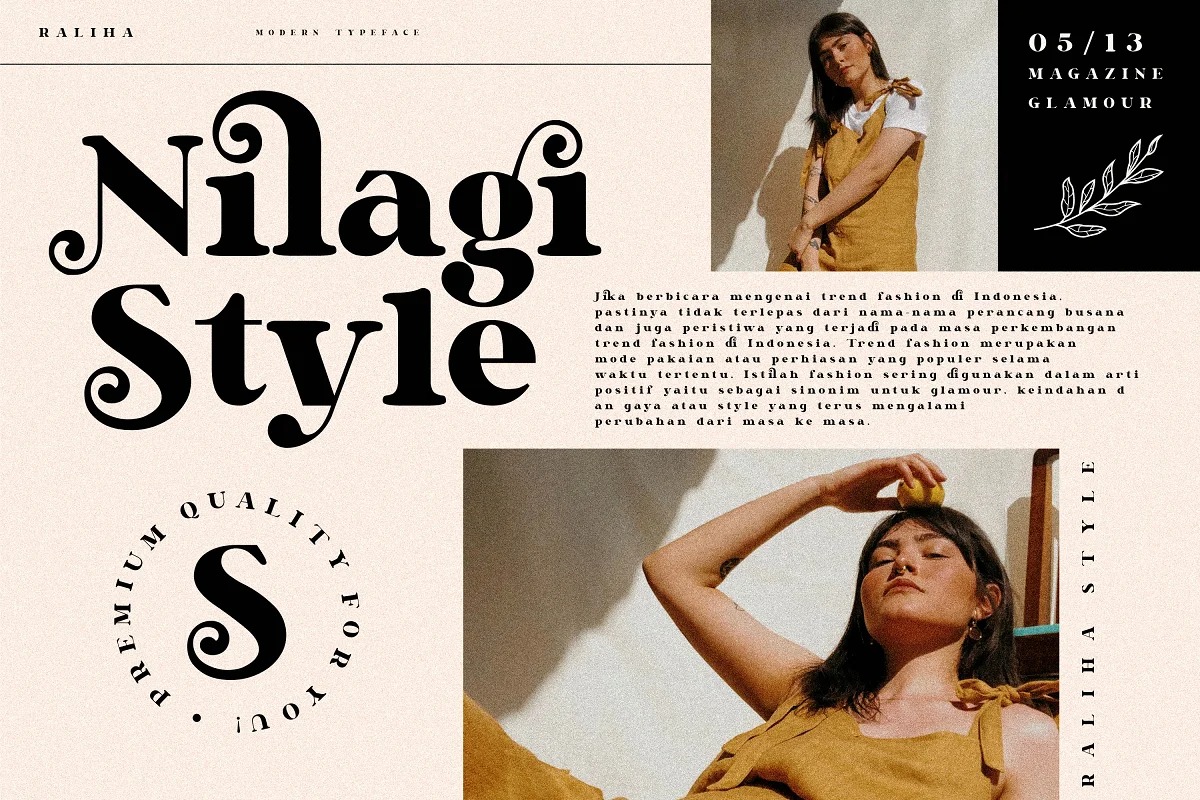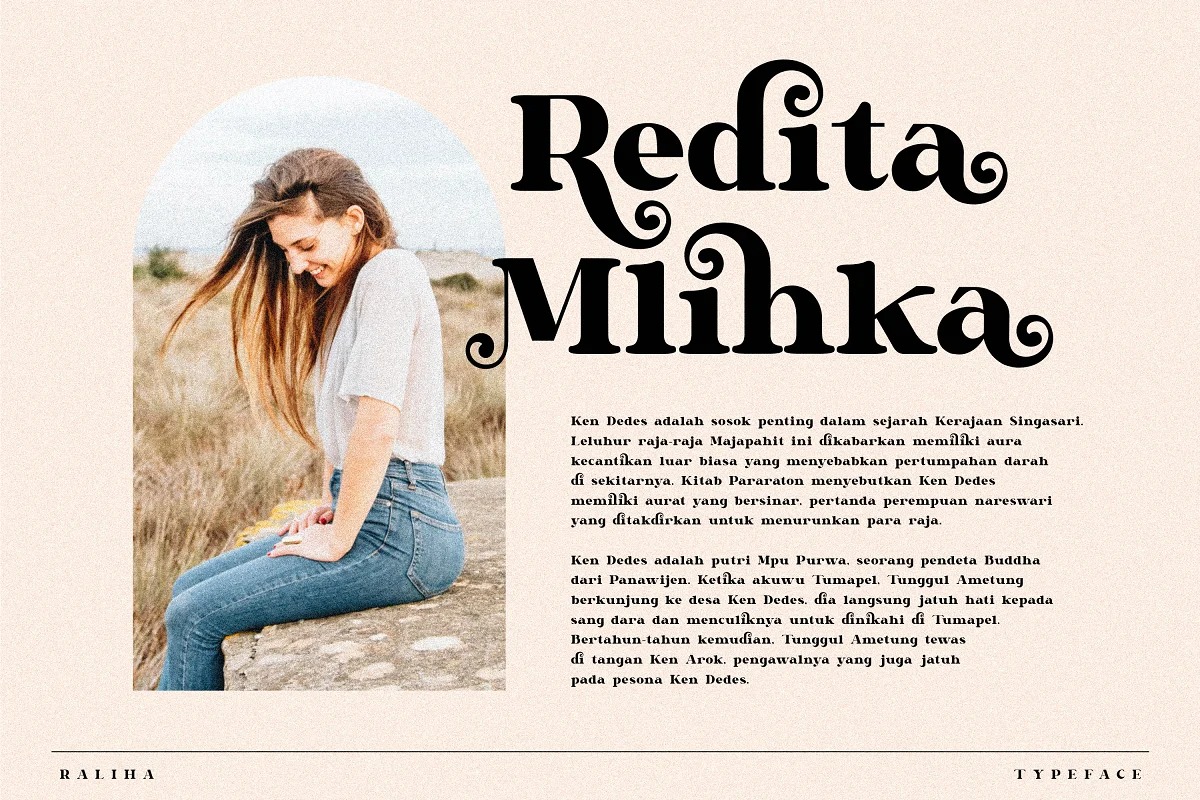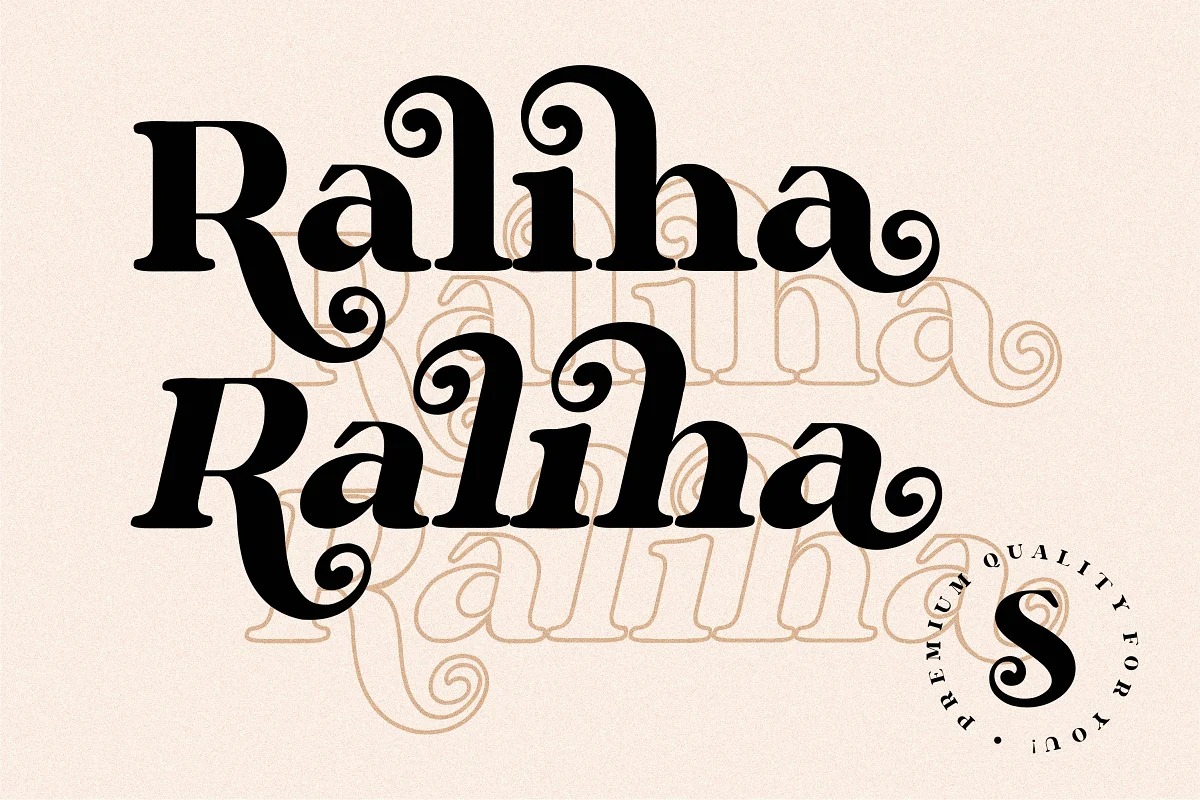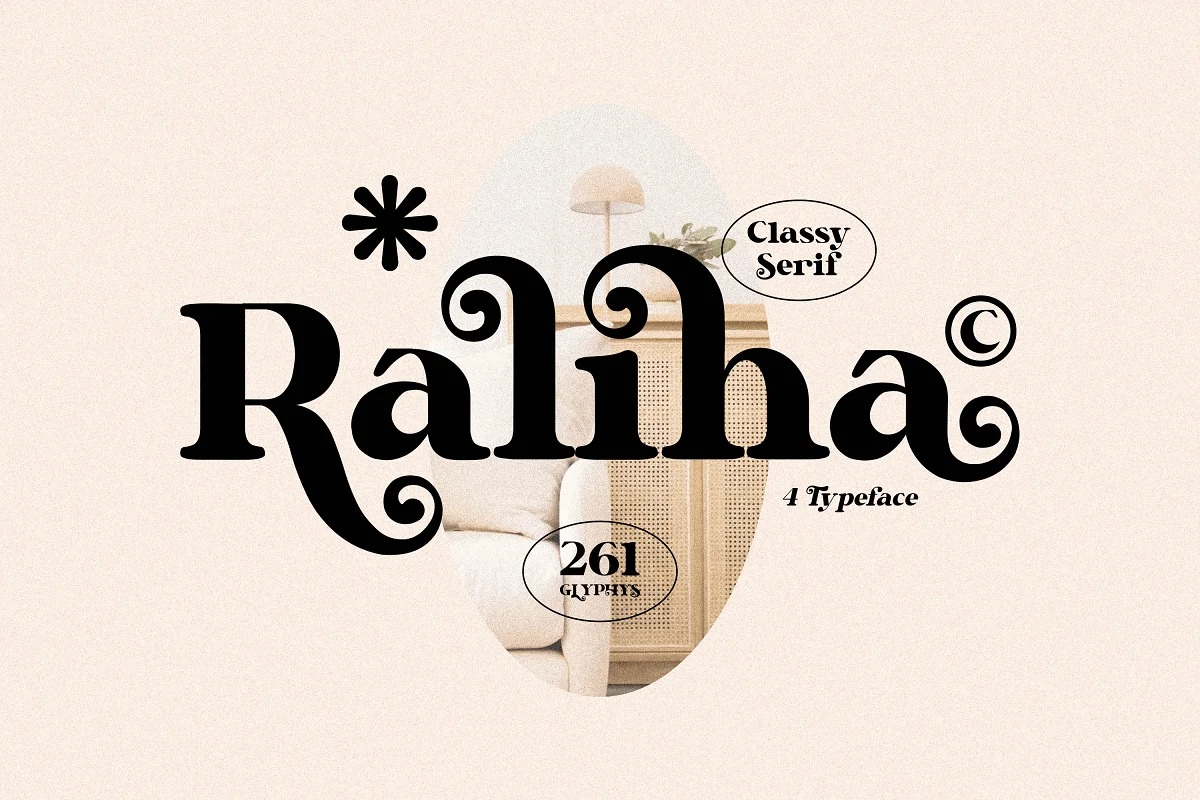
Raliha Serif Font
This is an elegant and incredibly authentic serif font manufactured by Storytype Studio. It has a vintage touch and an incredibly unique feel, so add it confidently and you will love the results. This typeface is perfect for an elegant & luxury logo, book or movie title design, fashion brand, magazine, clothes, lettering, quotes, and so much more.